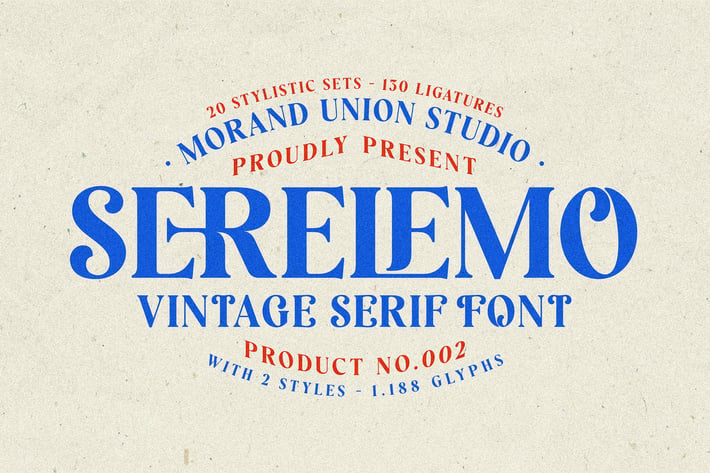
Serelemo - Vintage Serif Font
Serelemo is a Vintage Serif Font that has unique characteristics with a retro vintage style, created with care and pride. It has a total of 1,188 glyphs, 577 stylistic alternates, and 130 ligatures. The alternates and ligatures are very beautiful with charming curves. This font is very powerful and suitable for use in creating logos, branding, headlines, labels, packaging, magazines, and much more.
- 1.180 Glyphs
- 577 Stylistic Alternates
- 130 Ligatures
- Numbers
- Punctuations
- Multilingual Languages Supported